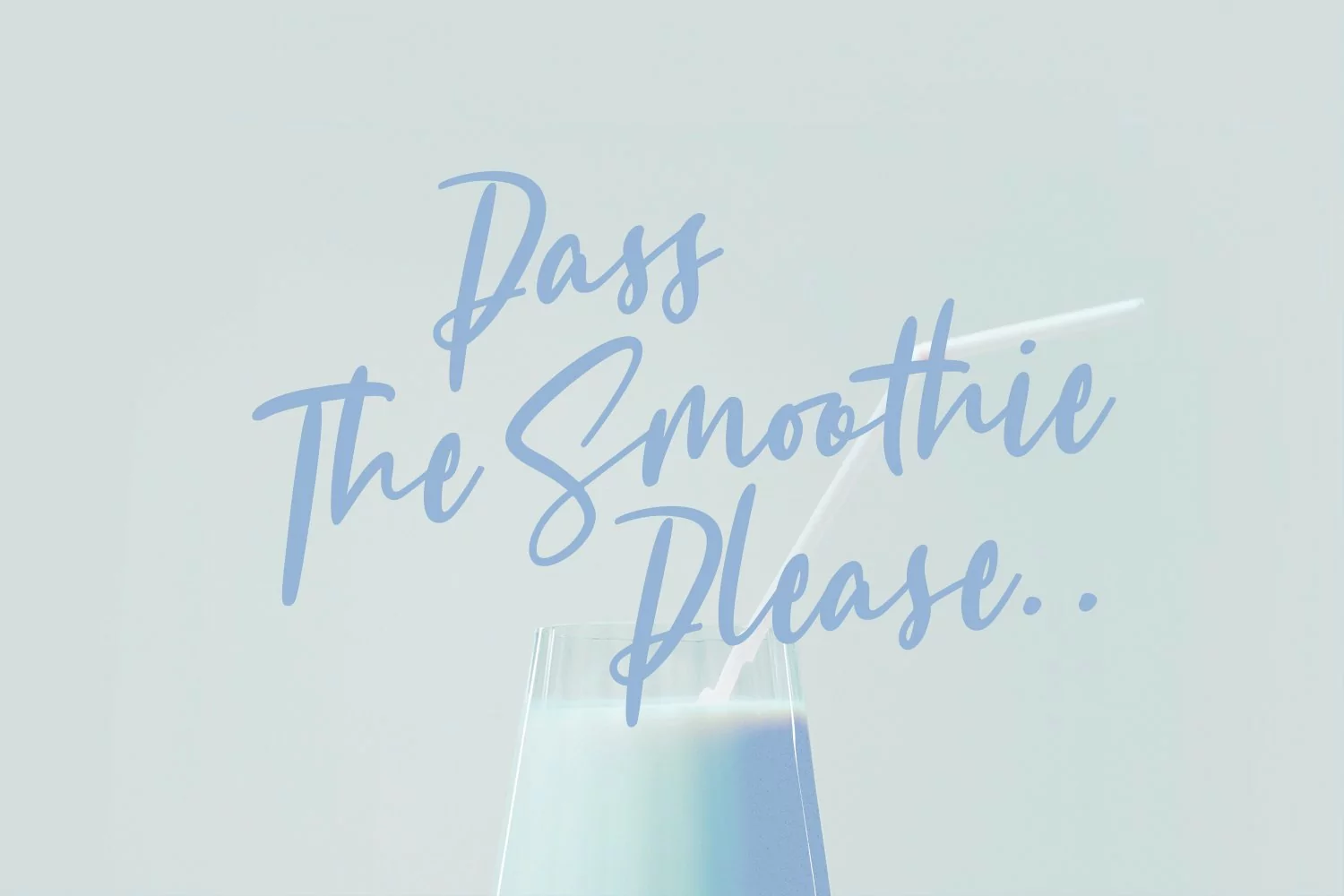
Sisterhood is casual script font, with bold stroke, slanted and fun character. It has Opentype features ligatures of character, To give you an extra creative work. Sisterhood font support multilingual more than 100+ language. This font is good for logo design, Social media, Movie Titles, Books Titles, a short text even a long text letter and good for your secondary text font with sans or serif. Make a stunning work with Sisterhood font.
Sisterhood